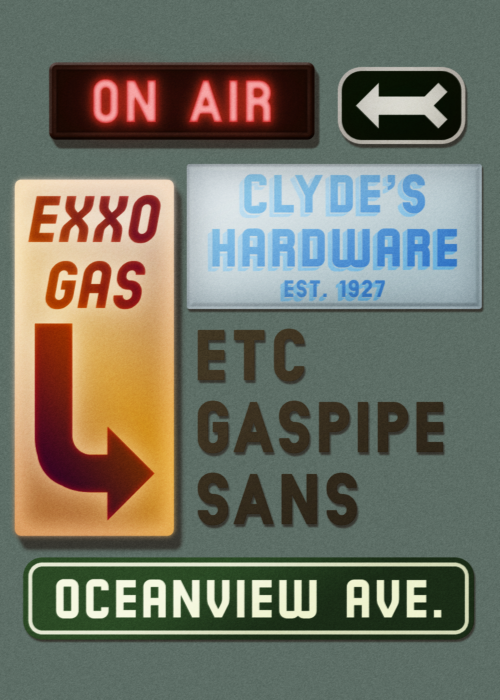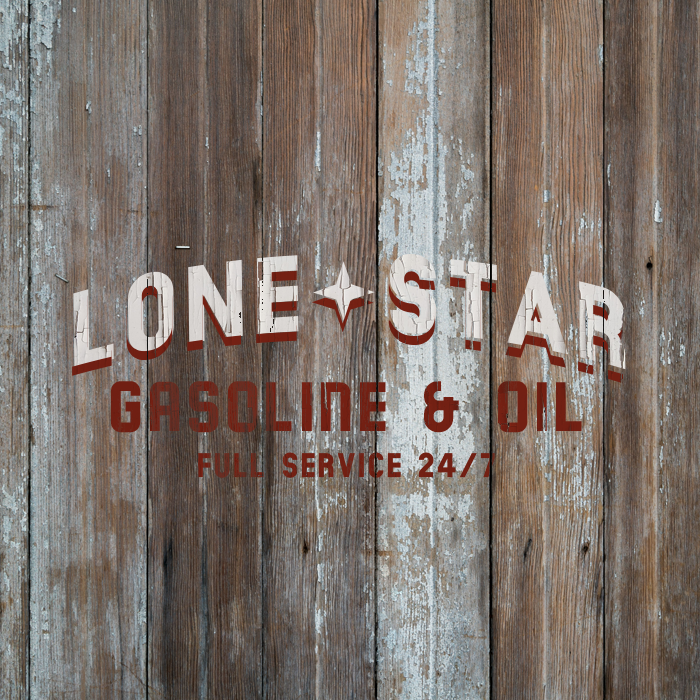
• A gaspipe-style display typeface based on a sample from Ernst Bentele's "Schrift". Letterforms are based on the "Normal Oblique" version, but alternates for the "Outside-round/inside-square" and "Outside and inside round" versions are included.
Miscellaneous shapes and arrows are also included
I was initially planning on publishing only the serif version, but decided to publish this version as well for those who want it
I like it, it'd fit nicely in a 50s-style diner.